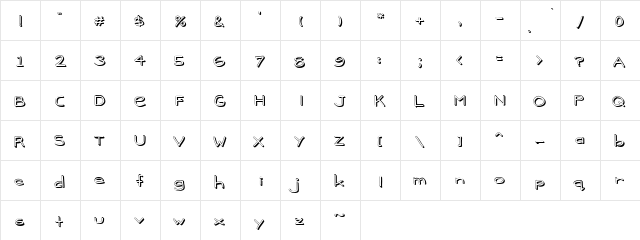
MadisonShadowed Regular
Design Context for MadisonShadowed Typeface
MadisonShadowed brings ornamental detail and strong personality to headlines and identities, where visual impact matters more than quiet functionality.
Font Pairing: Pair with a clean neutral sans-serif for body copy to let MadisonShadowed's character lead without overwhelming the composition.
Pro Tip: Treat MadisonShadowed as the centrepiece of your typographic hierarchy. One strong heading set in a decorative face can carry an entire layout.